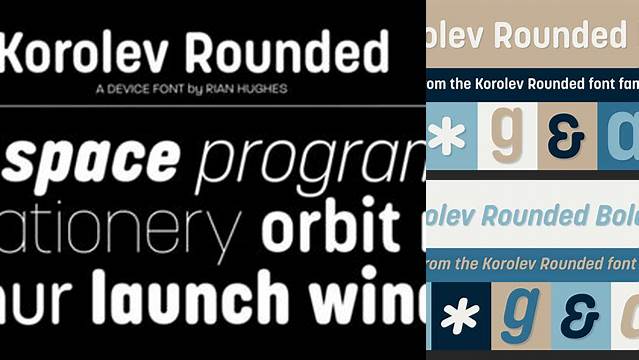
Are you looking for a modern and friendly font for your next design project? Korolev Rounded Font might be just what you need! In this comprehensive guide, we'll delve into everything you need to know about this fantastic font, including its features, how to use it effectively, and where to download it for free in TTF format. So, buckle up, guys, and let's dive into the world of Korolev Rounded!
What is Korolev Rounded Font?
Korolev Rounded Font is a contemporary typeface characterized by its smooth, rounded terminals and clean lines. This font family exudes a sense of warmth and approachability, making it an excellent choice for a wide range of design applications. Its rounded corners give it a soft, friendly feel, while its balanced letterforms ensure readability and legibility across various media. The overall aesthetic is modern and versatile, suitable for both display and body text purposes.
One of the key aspects of Korolev Rounded is its ability to convey a sense of trustworthiness and reliability. The rounded edges soften the overall appearance, making it less harsh and more inviting than fonts with sharp corners. This makes it particularly well-suited for projects where you want to build a strong connection with your audience. Whether you're designing a logo, creating marketing materials, or crafting a website, Korolev Rounded Font can help you communicate your message in a clear and engaging way.
The versatility of Korolev Rounded Font is also a significant advantage. It works equally well in both print and digital formats, ensuring that your designs look consistent across all platforms. The clean lines and balanced letterforms make it easy to read on screens of all sizes, while the rounded corners add a touch of personality that helps it stand out from more generic typefaces. This adaptability makes it a valuable asset for any designer looking to create a cohesive and impactful brand identity.
Moreover, Korolev Rounded Font often comes in multiple weights and styles, giving you even more flexibility in your designs. From light and airy to bold and impactful, the various weights allow you to create visual hierarchy and add emphasis where needed. This makes it easy to tailor the font to your specific needs, ensuring that it complements your overall design aesthetic. For example, you might use a lighter weight for body text to ensure readability, and a bolder weight for headings to grab the reader's attention. The availability of different styles, such as italic or condensed versions, further expands the creative possibilities.
In summary, Korolev Rounded Font is a modern, versatile typeface that offers a unique blend of warmth and clarity. Its rounded corners and clean lines make it a friendly and approachable choice for a wide range of design projects. Whether you're working on a logo, website, or marketing materials, Korolev Rounded can help you communicate your message effectively and create a lasting impression.
Key Features of Korolev Rounded Font
When diving into the specifics of Korolev Rounded Font, it's essential to highlight its key features that make it such a versatile and appealing choice for designers. These features contribute to its unique character and ensure its usability in a variety of projects. From its rounded terminals to its clean lines and multiple weights, Korolev Rounded has a lot to offer. Let's explore these features in detail to understand why this font is so highly regarded.
Firstly, the most distinctive feature of Korolev Rounded Font is undoubtedly its rounded terminals. Unlike fonts with sharp, angular edges, Korolev Rounded features soft, curved endings to each stroke. This creates a sense of warmth and friendliness, making the font feel approachable and inviting. The rounded terminals contribute significantly to the font's overall personality, making it a great choice for projects that aim to convey a sense of trust and reliability. This feature is particularly beneficial for brands that want to project a friendly and customer-centric image. For instance, businesses in the healthcare, education, or hospitality sectors might find Korolev Rounded to be an excellent fit.
Secondly, the clean lines of Korolev Rounded Font are crucial to its legibility and readability. Despite its rounded features, the font maintains a crisp and clear appearance, ensuring that it remains easy to read even in smaller sizes. The balanced letterforms contribute to this clarity, making it suitable for both display text (such as headings and titles) and body text (such as paragraphs and articles). The clean lines also ensure that the font looks modern and professional, making it a versatile choice for a wide range of applications. Whether you're designing a website, creating a brochure, or crafting a presentation, the clean lines of Korolev Rounded will help ensure that your message is communicated clearly and effectively.
Another important feature of Korolev Rounded Font is its availability in multiple weights. This allows designers to create visual hierarchy and add emphasis to different parts of their designs. The varying weights, from light to bold, provide flexibility in how the font can be used. For example, a lighter weight might be used for body text to ensure readability, while a bolder weight could be used for headings to draw attention. This versatility makes Korolev Rounded a valuable asset in any designer's toolkit, enabling them to tailor the font to the specific needs of their project. The different weights also allow for creative experimentation, as designers can mix and match them to create visually interesting layouts.
In addition to the weights, Korolev Rounded Font often includes different styles, such as italic and condensed versions. These styles further expand the font's versatility, allowing designers to create a wider range of visual effects. The italic style adds a touch of elegance and can be used to emphasize specific words or phrases. The condensed version, on the other hand, is useful for fitting more text into a limited space without sacrificing readability. These additional styles make Korolev Rounded a comprehensive font family that can handle a variety of design challenges.
In conclusion, Korolev Rounded Font is a versatile and friendly typeface that can add a touch of warmth and modernity to your design projects. Its rounded terminals and clean lines make it suitable for a wide range of applications, from branding and web design to print materials and presentations. By understanding its key features, learning how to use it effectively, and knowing where to download it for free in TTF format, you can leverage this font to create visually appealing and impactful designs. Remember to always verify the licensing terms before using any font, and enjoy the creative possibilities that Korolev Rounded has to offer. So, guys, go ahead and experiment with Korolev Rounded Font and elevate your designs to the next level! Whether you're a seasoned designer or just starting out, this font is sure to become a valuable addition to your typographic toolkit.